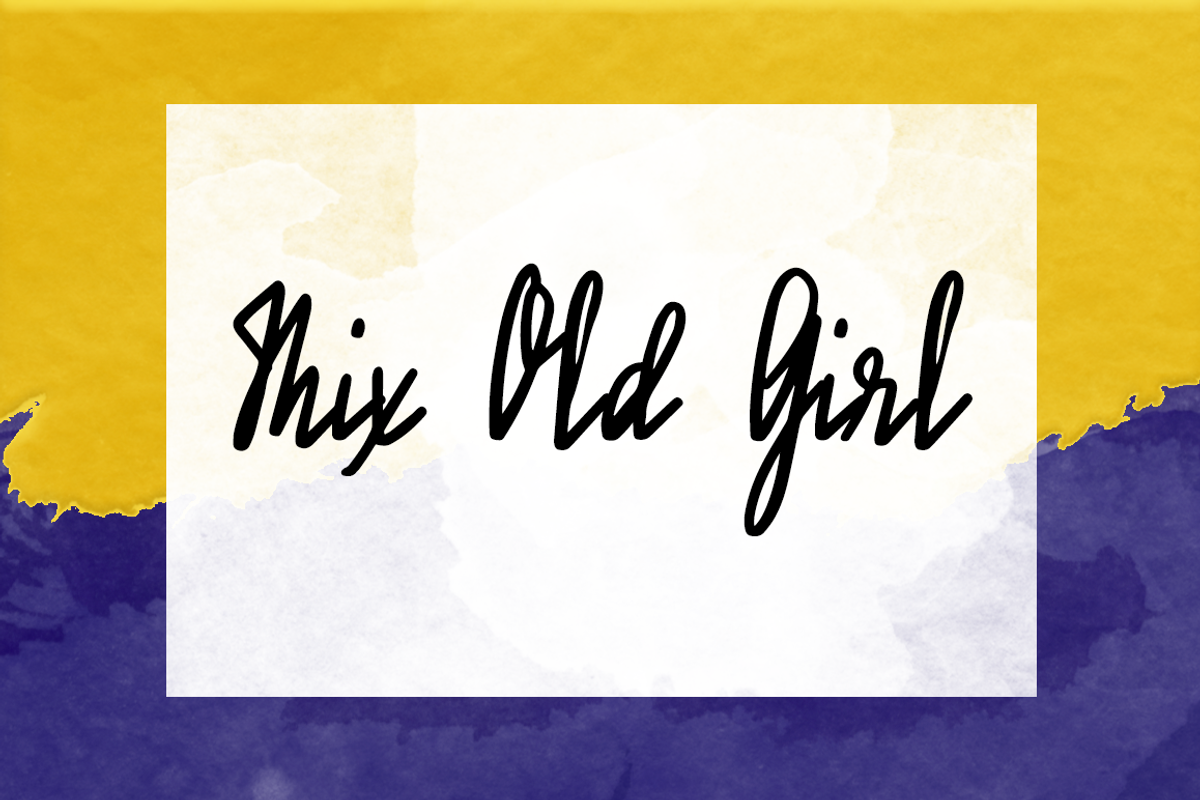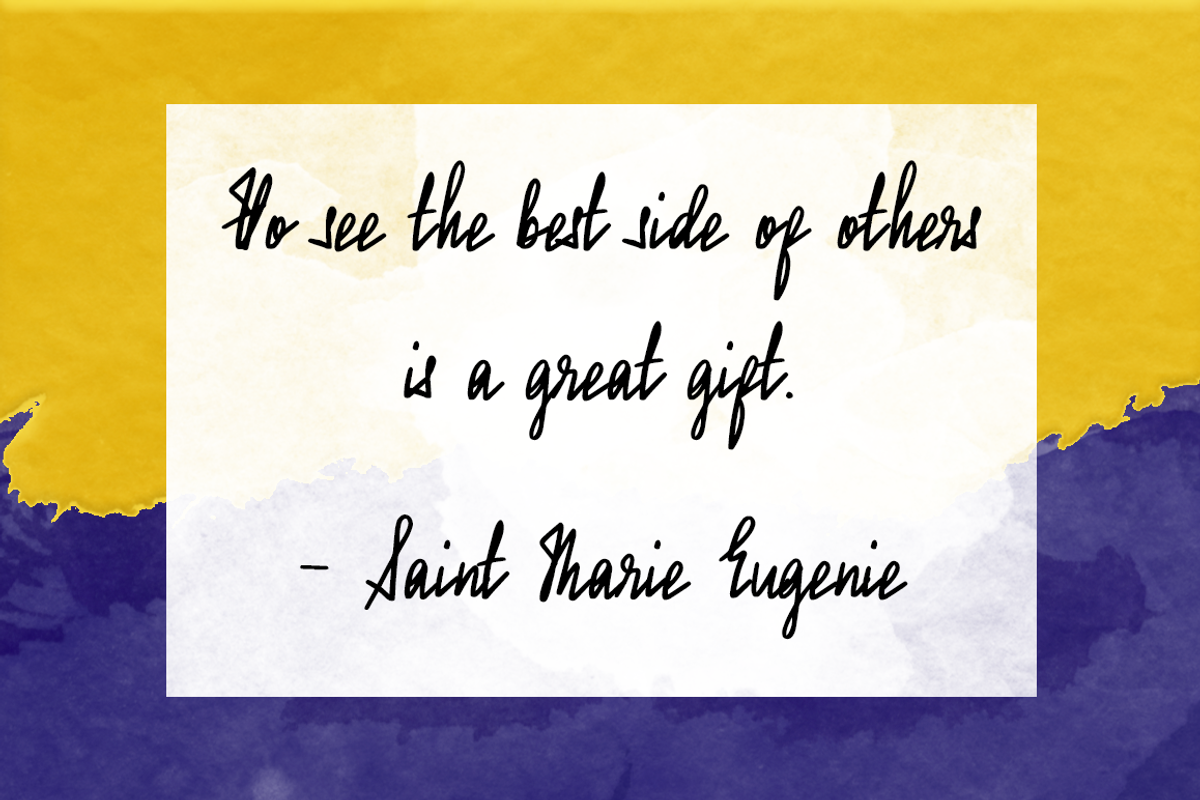
Mix Old Girl
Mix Old Girl by Mix Fonts is a font selected for branding, posters, packaging, typography.
- Mix Old Girl Script
Why Mix Old Girl is worth a look
Mix Old Girl by Mix Fonts fits naturally into Branding, posters, packaging, typography.